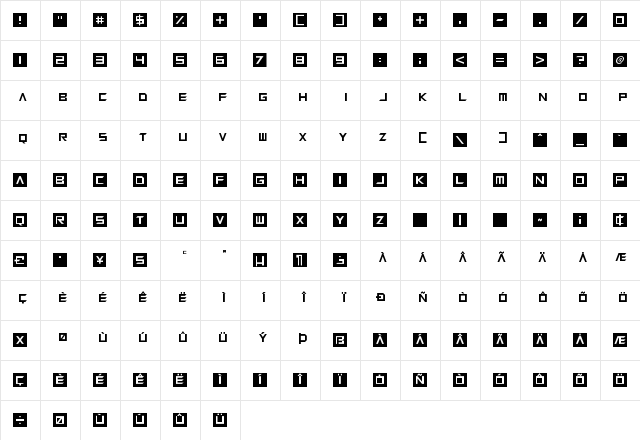
Squaresharps Regular
| Designer | Darrell Flood |
Design Context for Squaresharps Typeface
Squaresharps offers clean, dependable letterforms without strong stylistic allegiance, making it a practical choice for designers who need flexibility.